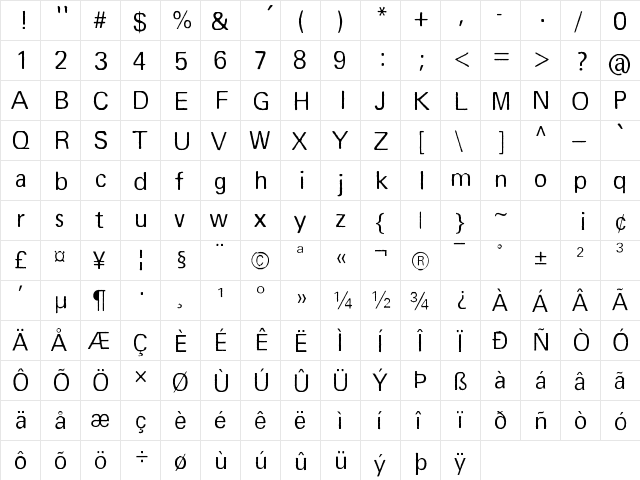
Univers Else Light
Design Context for Univers Else Typeface
Univers Else is a composed and adaptable typeface that performs quietly and consistently across a wide range of design contexts. Its slender proportions lend an understated elegance to any composition.